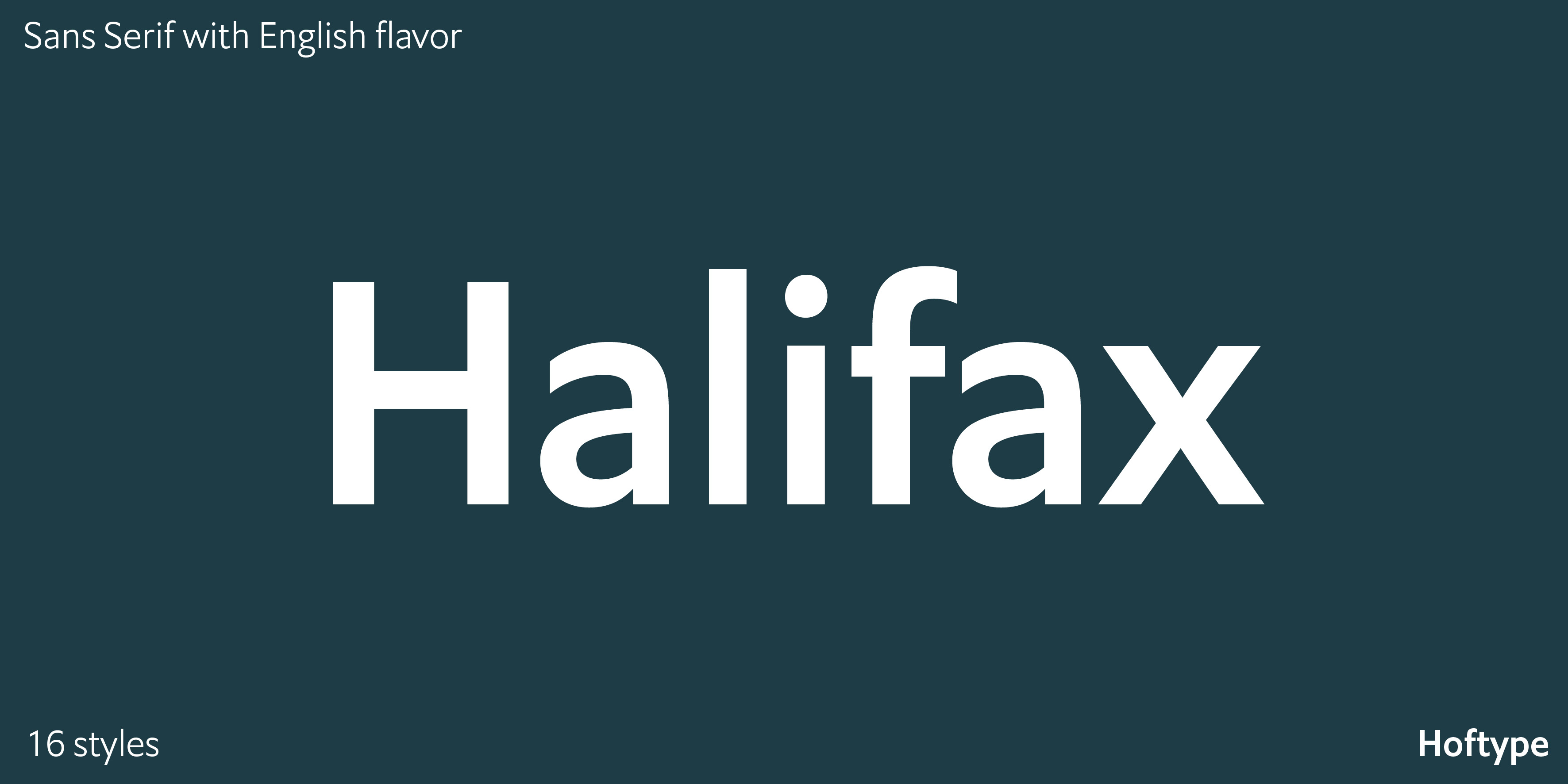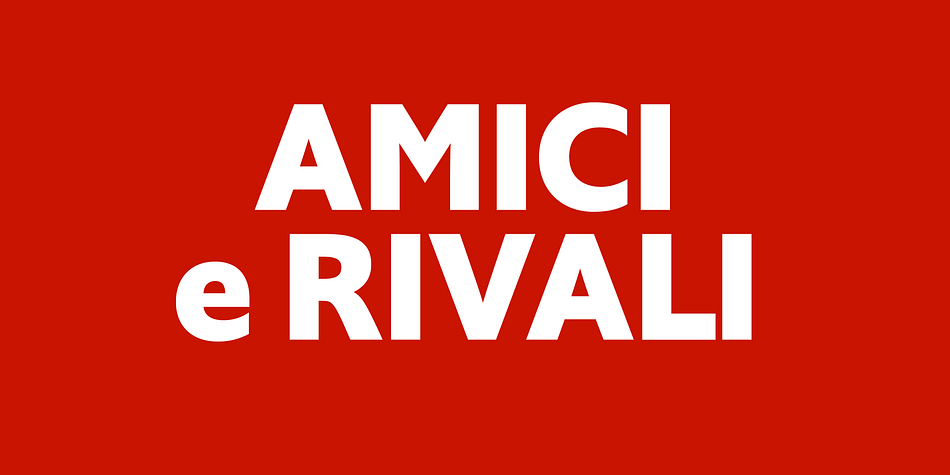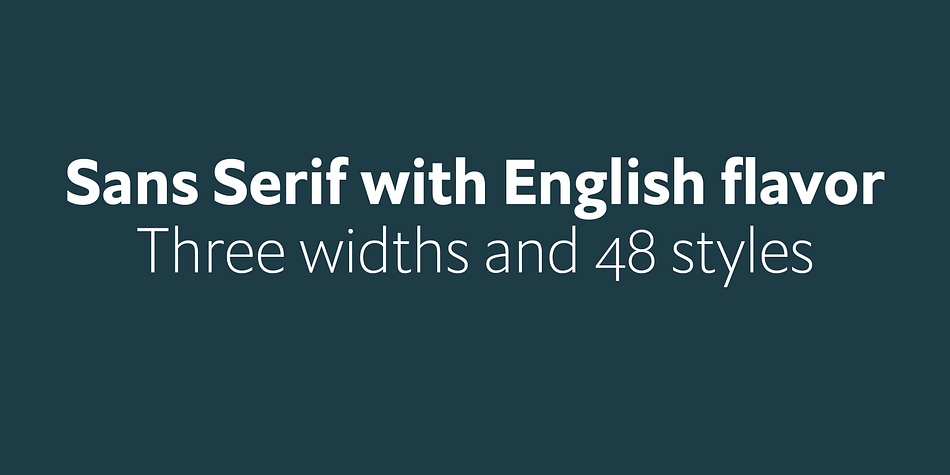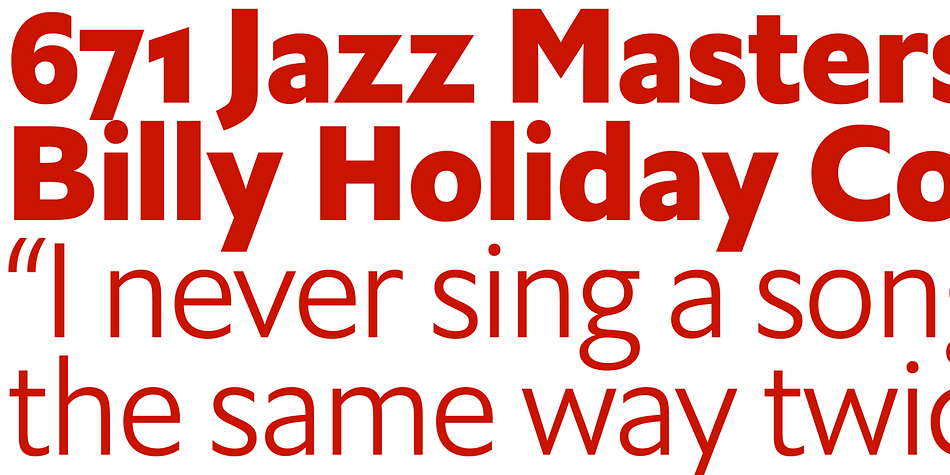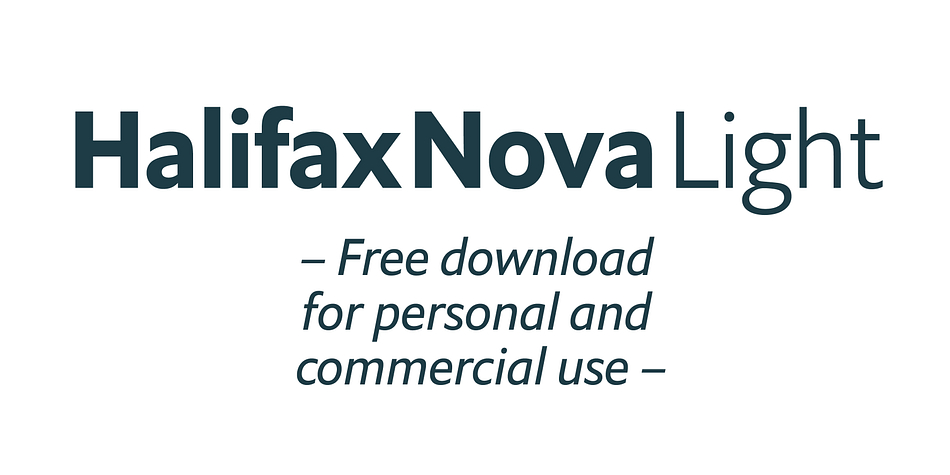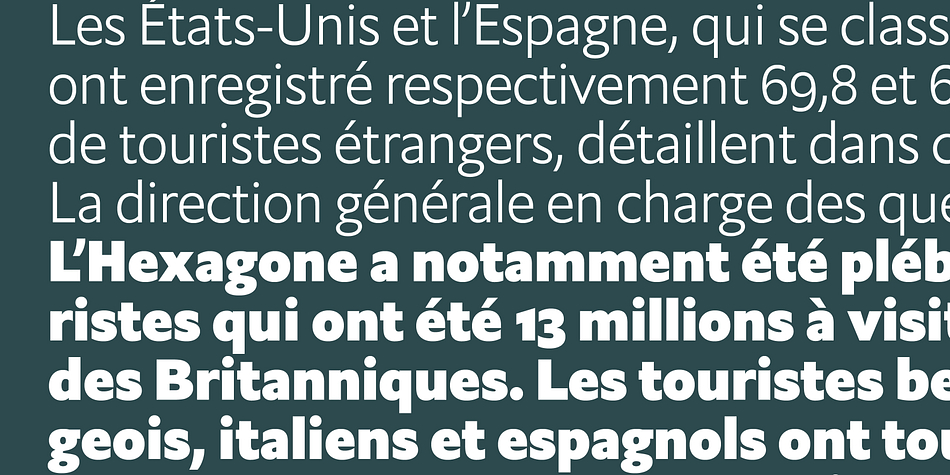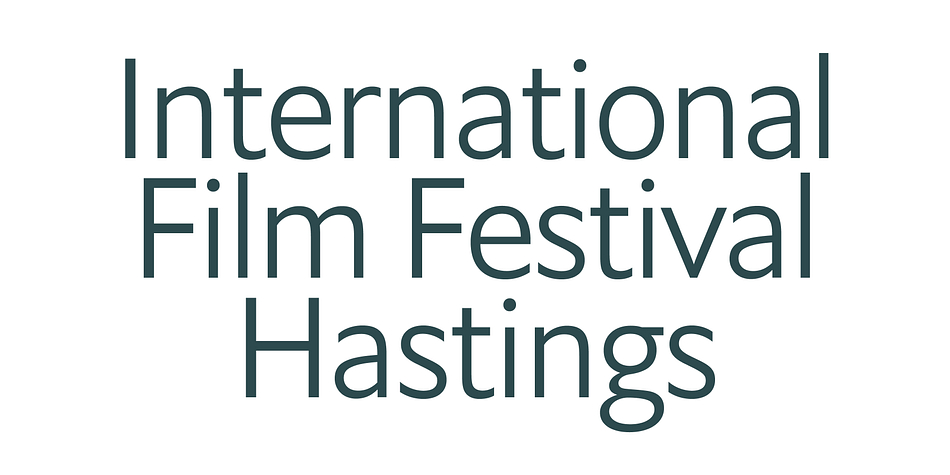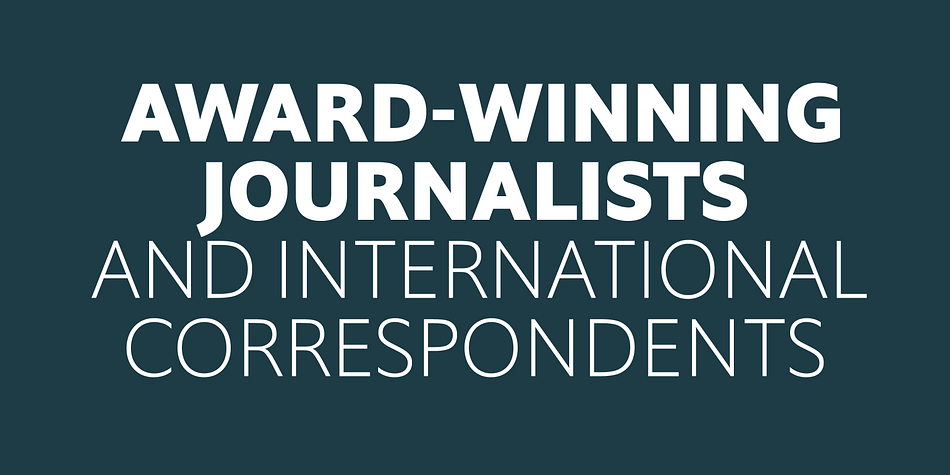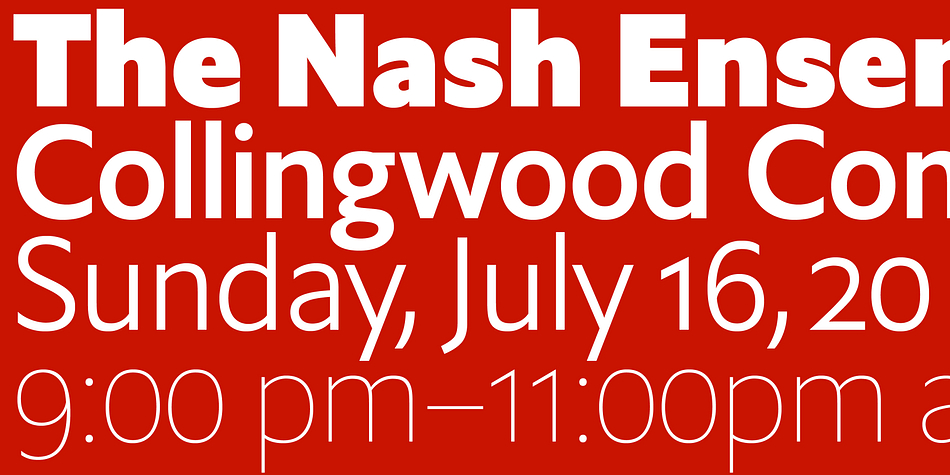
Designed by Dieter Hofrichter, Halifax is a sans serif font family. This typeface has sixteen styles and was published by Hoftype.
Halifax represents a new interpretation of classic English Sans types such as Gill and Johnston. The main focus in this approach is on a more open appearance and balanced proportions, which results in an even line flow. Although Halifax adds some of the rationality of the central-European sans tradition, it still preserves a distinctly English flavor.
The Halifax family consists of 16 styles and comes in OpenType format with extended language support. Halifax is very well suited for ambitious typography. All weights contain semi-ligatures (design optimized single characters), proportional lining figures, tabular lining figures, proportional old style figures, lining old style figures, matching currency symbols, fraction- and scientific numerals and arrows.